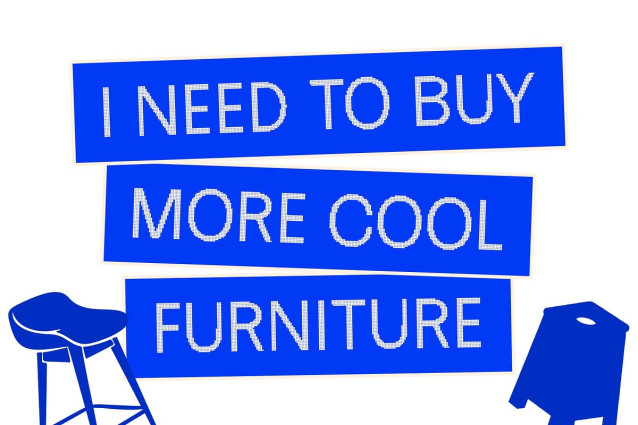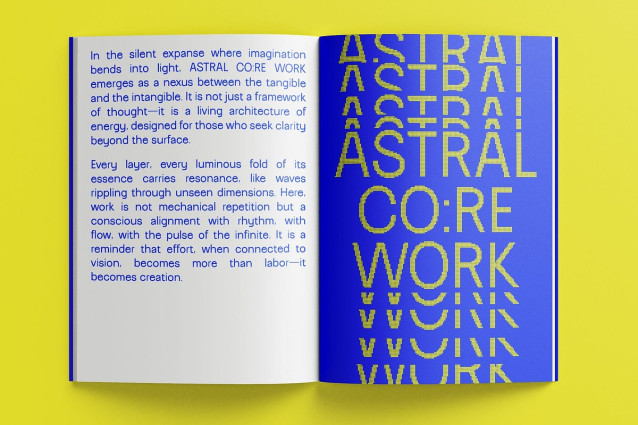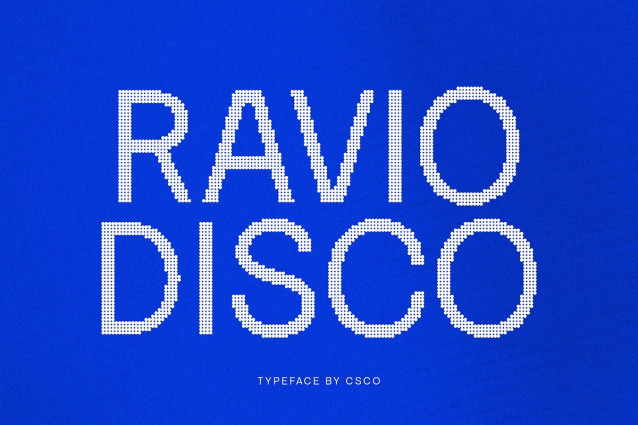
Ravio Disco Font
Ravio Disco Font features clean, geometric shapes with a contemporary sans serif structure that conveys professionalism, clarity, and style. Its minimalist design ensures readability and versatility, making it suitable for a wide range of creative and corporate projects.
Disco Flair for Dynamic Energy A sparkling disco effect adds visual rhythm, glamour, and liveliness to each character of this sans serif font. This subtle yet striking detail transforms text into dynamic, eye-catching typography, giving headlines, posters, and branding materials a vibrant and energetic presence.
Stylish, Modern, and Fresh By combining geometric precision with clean contemporary lines and disco-inspired sparkle, Ravio Disco projects a modern, stylish, and fresh personality. Its sleek design is perfect for projects that aim to be visually appealing while maintaining a minimalist and professional aesthetic.
Ideal for Branding, Posters, and Creative Projects Ravio Disco excels in branding, editorial layouts, posters, packaging, social media graphics, and other contemporary creative applications. The combination of geometric shapes, clean lines, and disco flair ensures designs appear modern, fresh, and memorable. Whether creating corporate materials, high-impact promotional designs, or stylish editorial layouts, Ravio Disco delivers a perfect blend of professionalism, elegance, and energetic visual appeal.